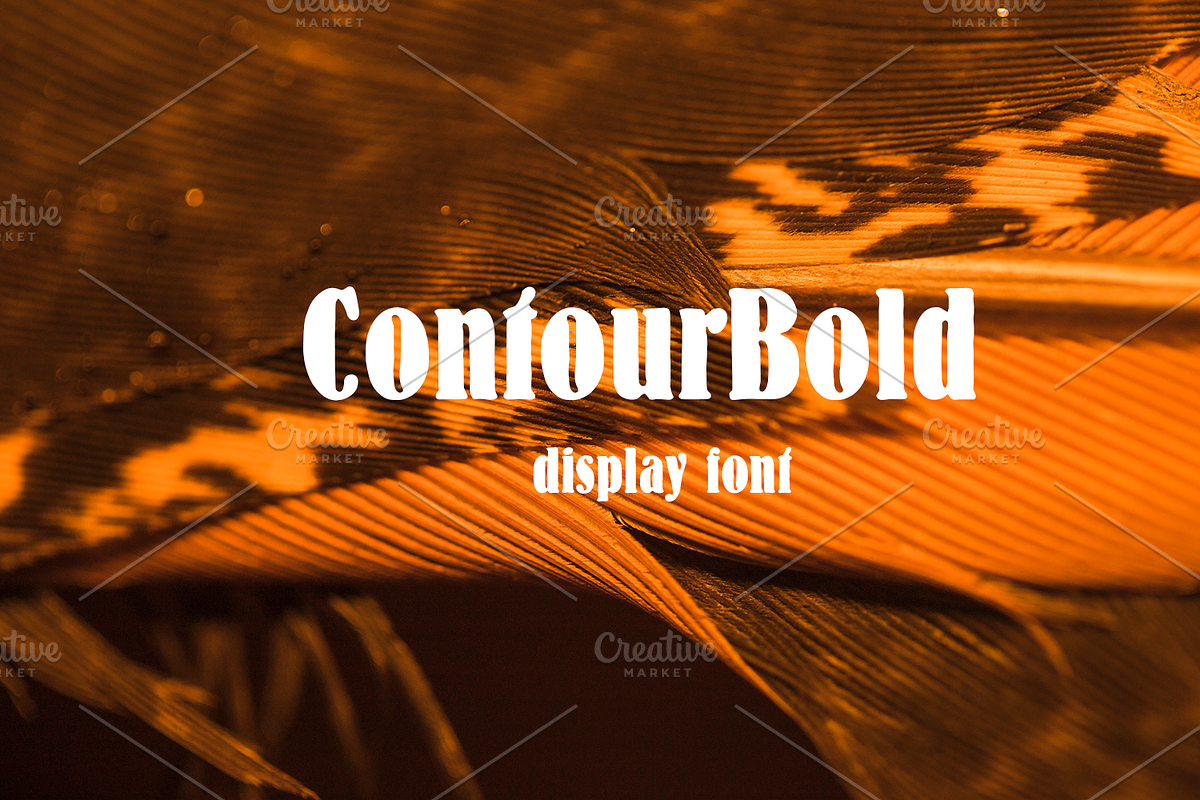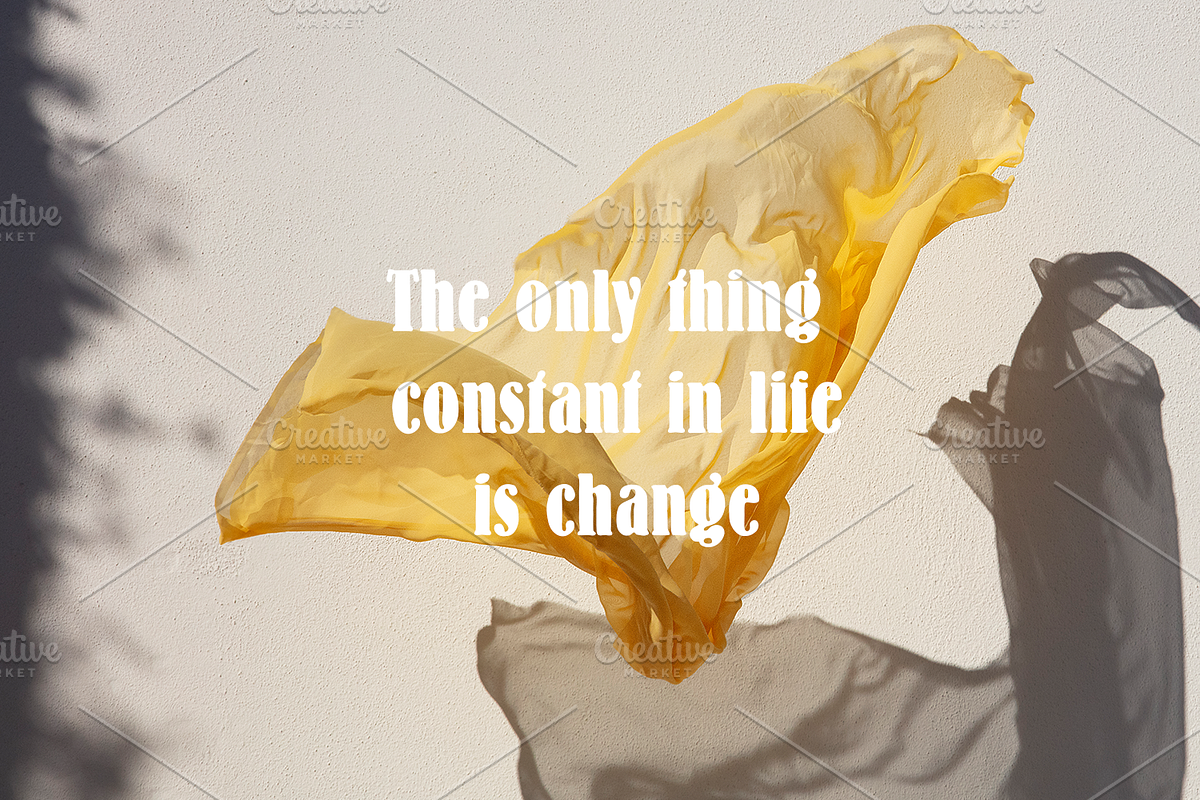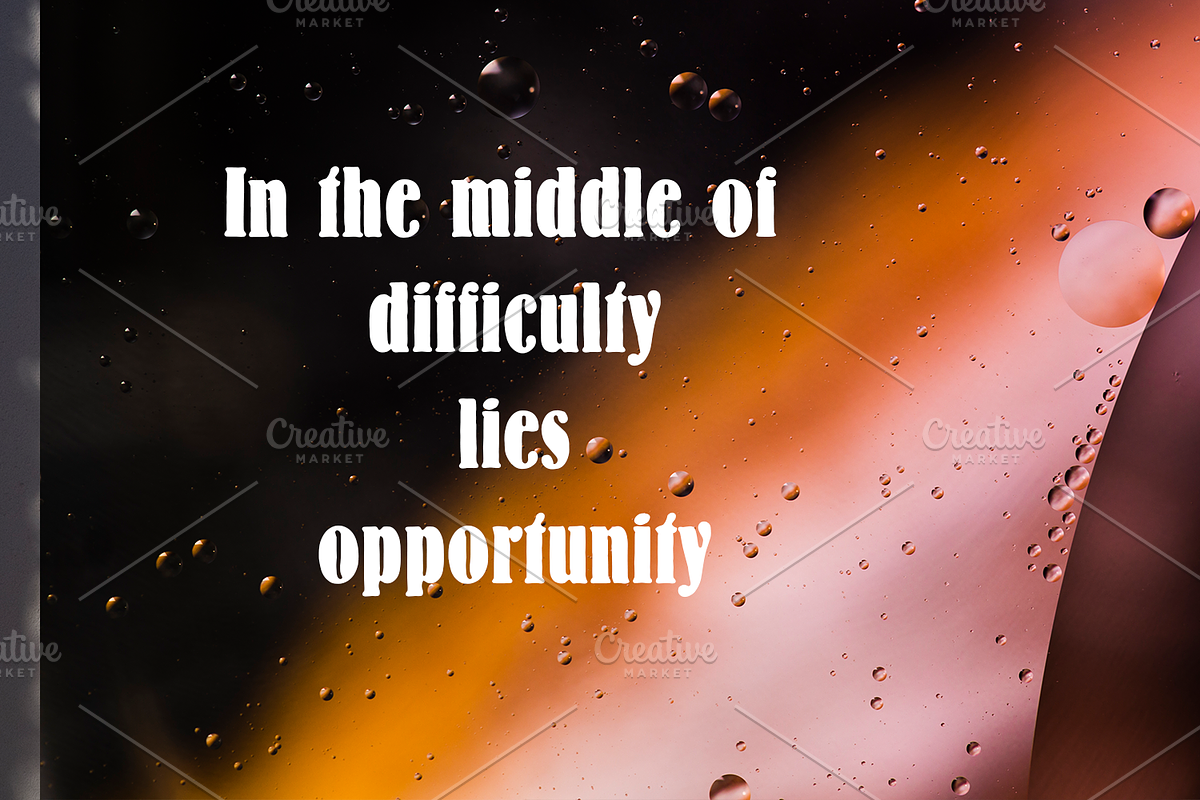
ContourBold-09-24-Regular
Bold and dynamic, this typeface commands attention with its thick strokes and graceful curves. Its flexibility and distinctive presence make it perfect for headlines and display designs, effortlessly drawing the eye. The font's unique blend of strength and fluidity gives it a modern yet approachable feel, ideal for impactful branding or striking presentations. It delivers a confident statement, making every title stand out with bold elegance.